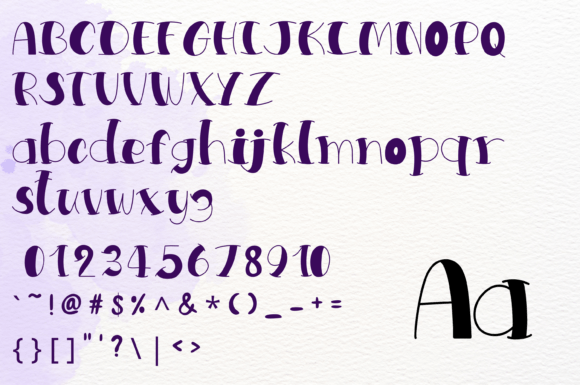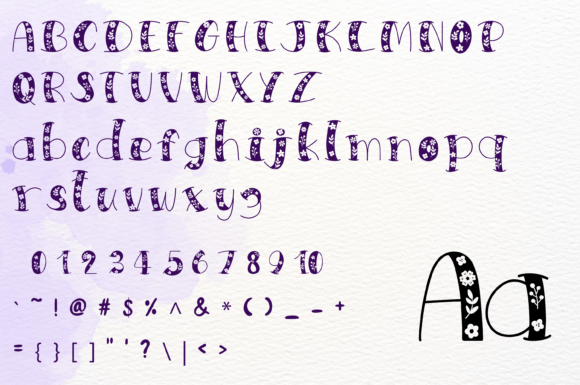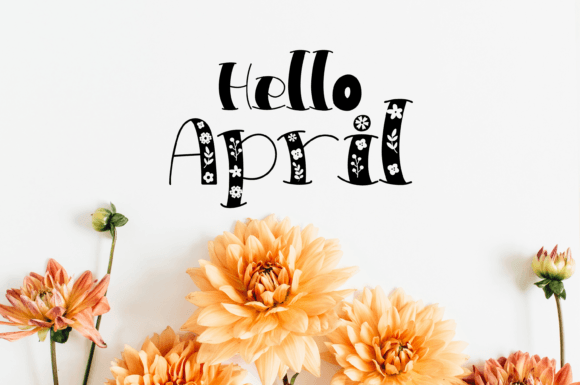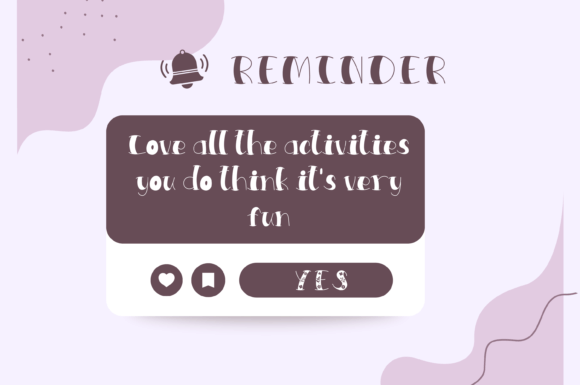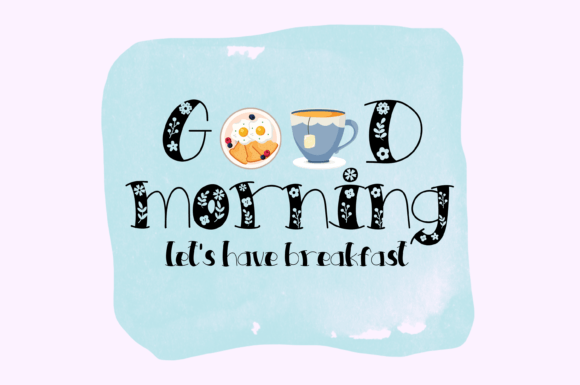
Blooming Season Font: Elevate Your Designs with a Whimsical Touch
Are you tired of using the same old fonts in your designs? Look no further than the Blooming Season Font, a charming and decorative display font that’s sure to add a touch of whimsy to your creative projects. In this article, we’ll dive into the world of Blooming Season Font and explore its features, uses, and benefits for designers and crafters.
What is Blooming Season Font?
Blooming Season Font is a carefully crafted, decorative display font that’s perfect for adding a personal touch to your designs. Its whimsical and cute style makes it an excellent choice for a wide range of projects, from DIY crafts to professional branding. With its unique and eye-catching design, Blooming Season Font is sure to make your creations stand out from the crowd.
Key Features of Blooming Season Font
• Whimsical and Cute Design: Blooming Season Font boasts a playful and charming design that’s sure to capture the attention of your audience.
• Decorative Display Font: This font is specifically designed for display purposes, making it perfect for headlines, titles, and other prominent text elements.
• Highly Versatile: Blooming Season Font can be matched with a wide range of projects, from paper crafting to digital designs, and everything in between.
• Easily Readable: Despite its decorative nature, Blooming Season Font remains easily readable, making it a great choice for both digital and print designs.
Uses of Blooming Season Font
Blooming Season Font is an incredibly versatile font that can be used in a variety of projects, including:
• DIY Crafts: Add a personal touch to your DIY crafts, such as scrapbooking, card making, and journaling.
• Digital Designs: Use Blooming Season Font in your digital designs, including social media graphics, blog posts, and website headers.
• Branding and Marketing: Make your brand stand out with Blooming Season Font, perfect for logos, business cards, and promotional materials.
• Paper Crafting: Add a touch of elegance to your paper crafting projects, such as invitations, party decorations, and gift tags.
Benefits of Using Blooming Season Font
By incorporating Blooming Season Font into your designs, you’ll enjoy several benefits, including:
• Unique and Eye-Catching Designs: Blooming Season Font will add a touch of personality to your designs, making them stand out from the crowd.
• Increased Creativity: With Blooming Season Font, you’ll be able to add a whimsical touch to your designs, sparking your creativity and inspiring new ideas.
• Professional-Looking Results: Blooming Season Font is designed to produce professional-looking results, making it perfect for both personal and commercial projects.
Tips and Tricks for Using Blooming Season Font
To get the most out of Blooming Season Font, here are a few tips and tricks to keep in mind:
• Experiment with Colors: Blooming Season Font looks great in a variety of colors, so don’t be afraid to experiment and find the perfect hue for your design.
• Mix and Match Fonts: Combine Blooming Season Font with other fonts to create a unique and visually appealing design.
• Use it for Headlines and Titles: Blooming Season Font is perfect for headlines and titles, adding a touch of personality to your text elements.